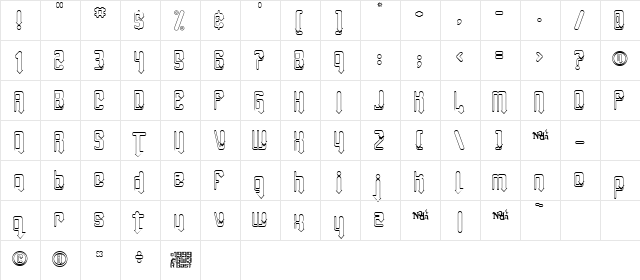
Angie TanLines Regular
Design Context for Angie TanLines Typeface
Angie TanLines is a composed and adaptable typeface that performs quietly and consistently across a wide range of design contexts.